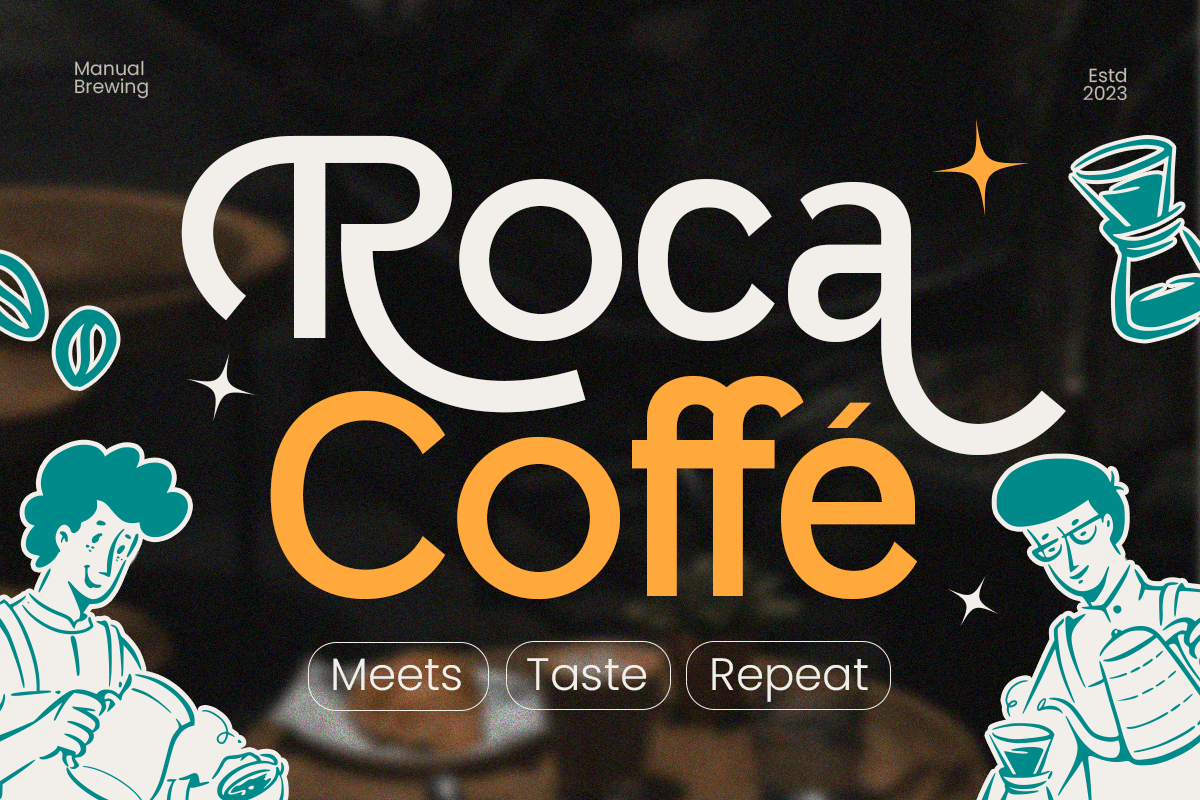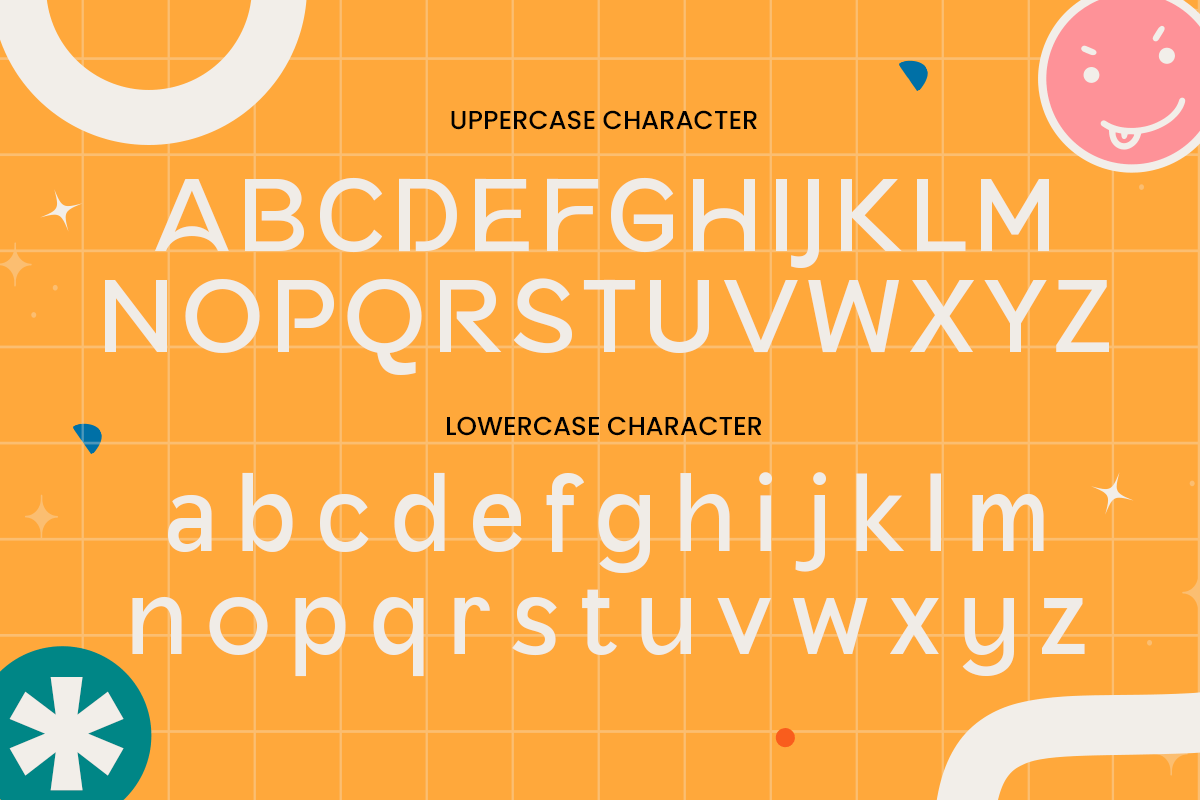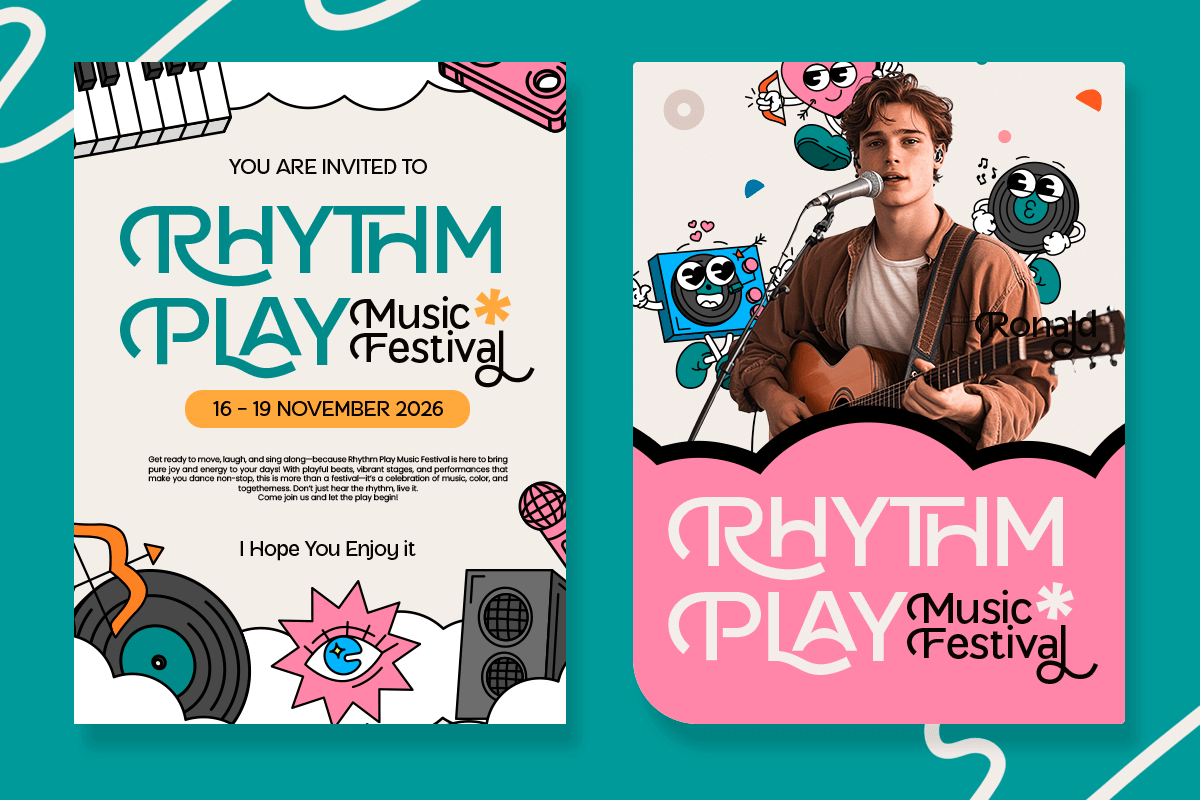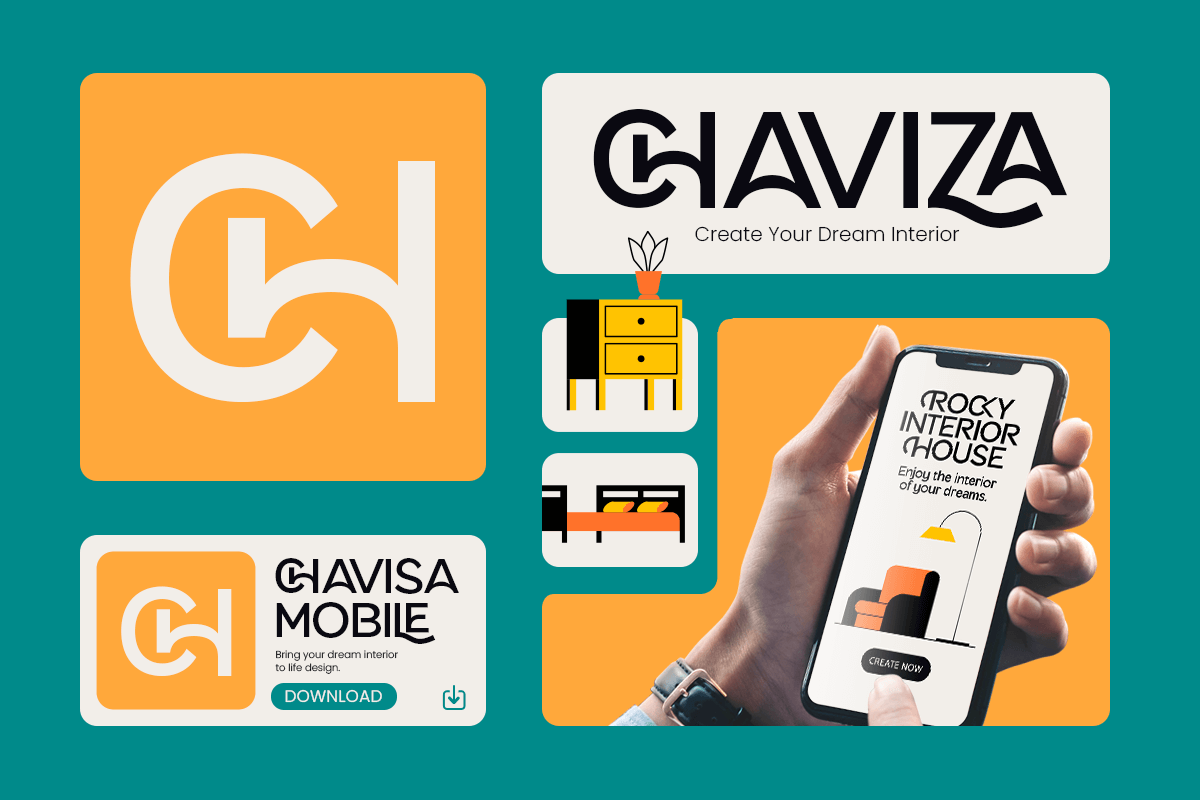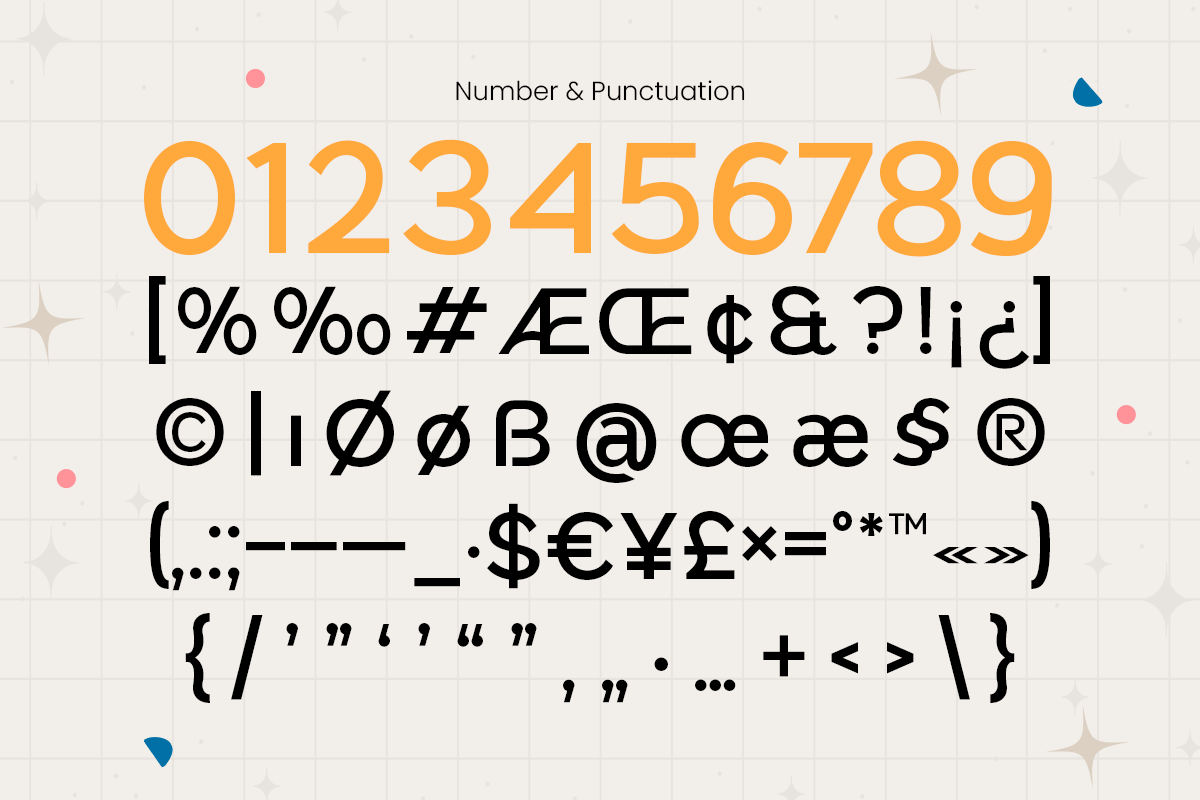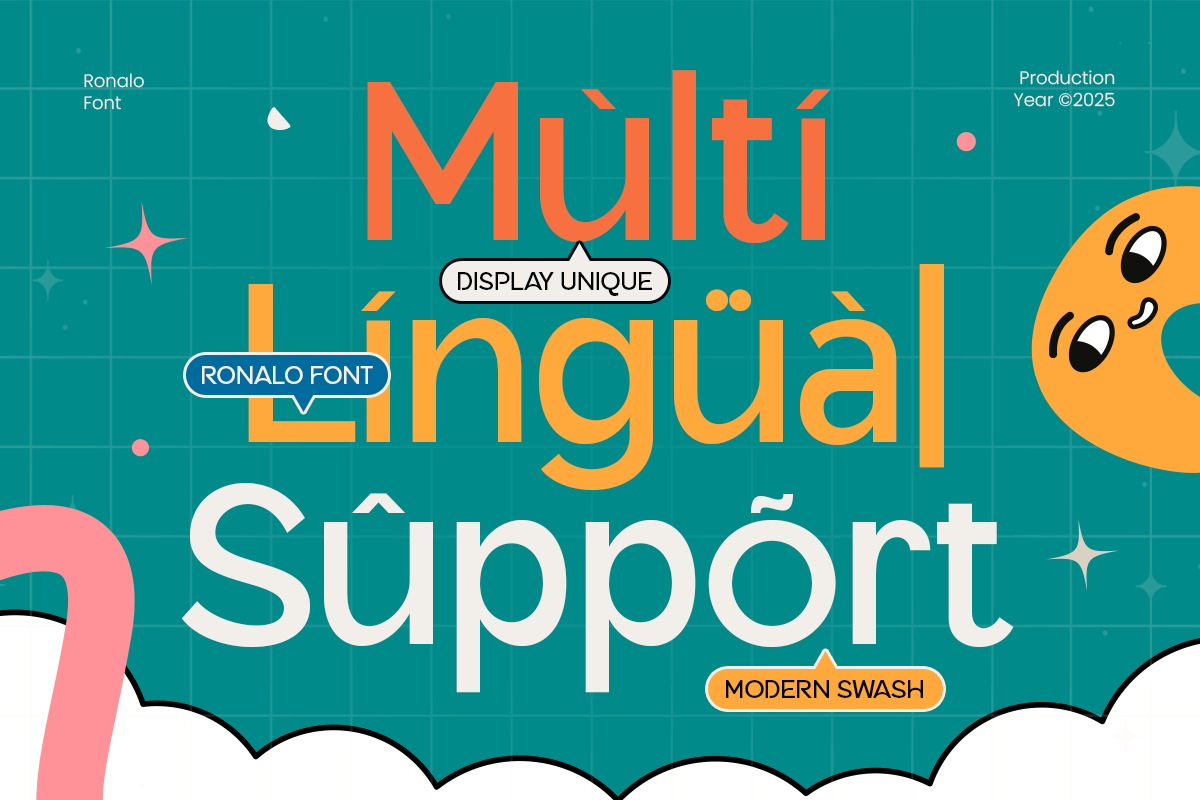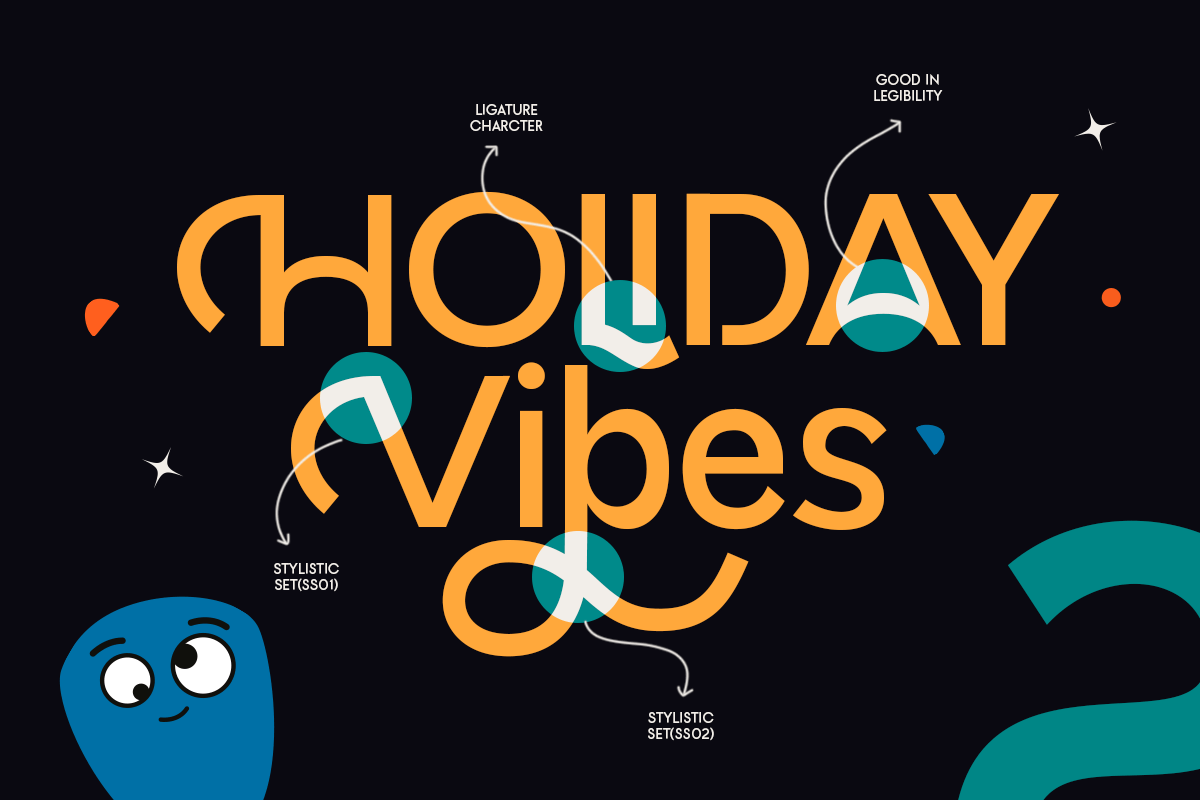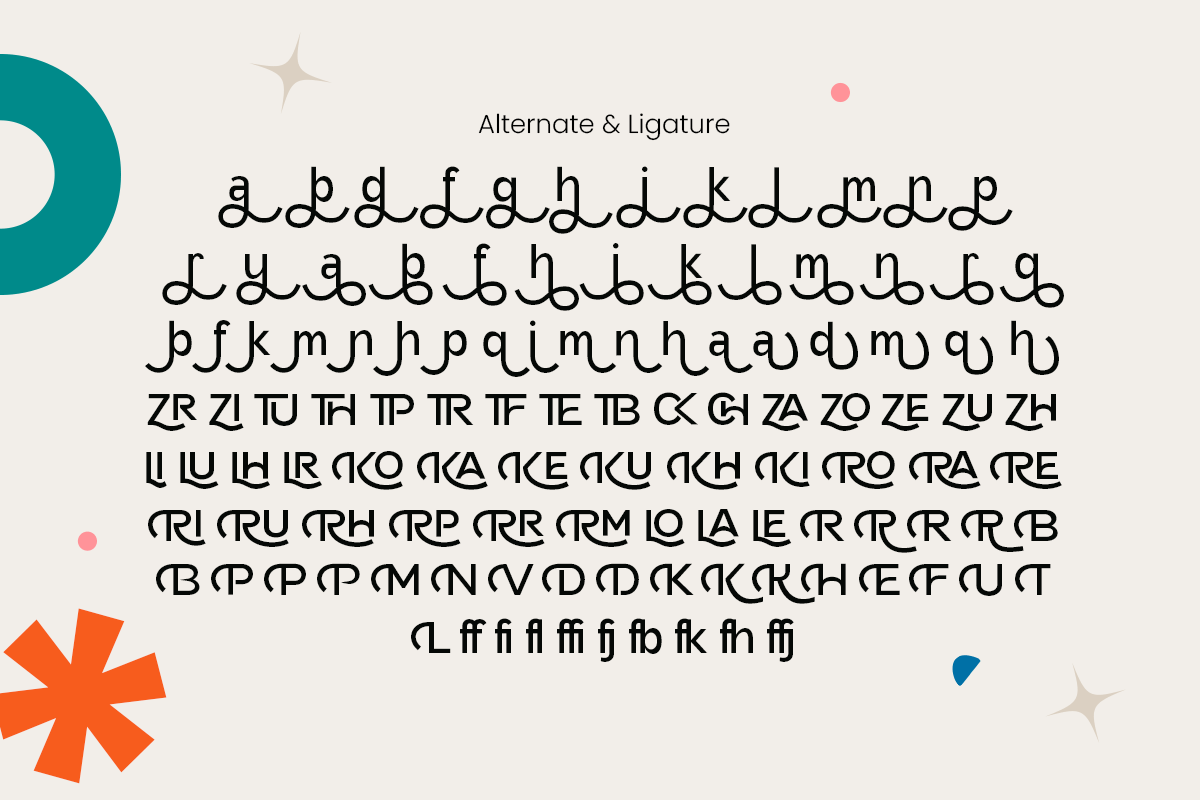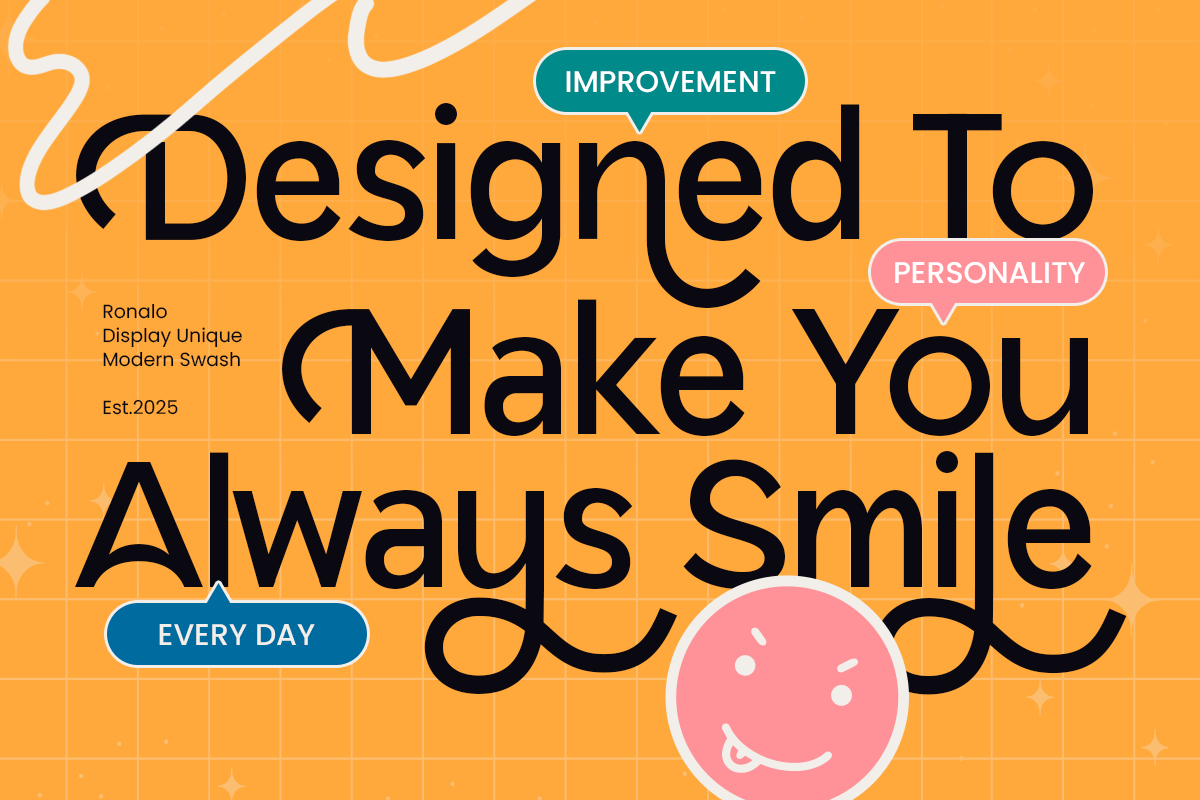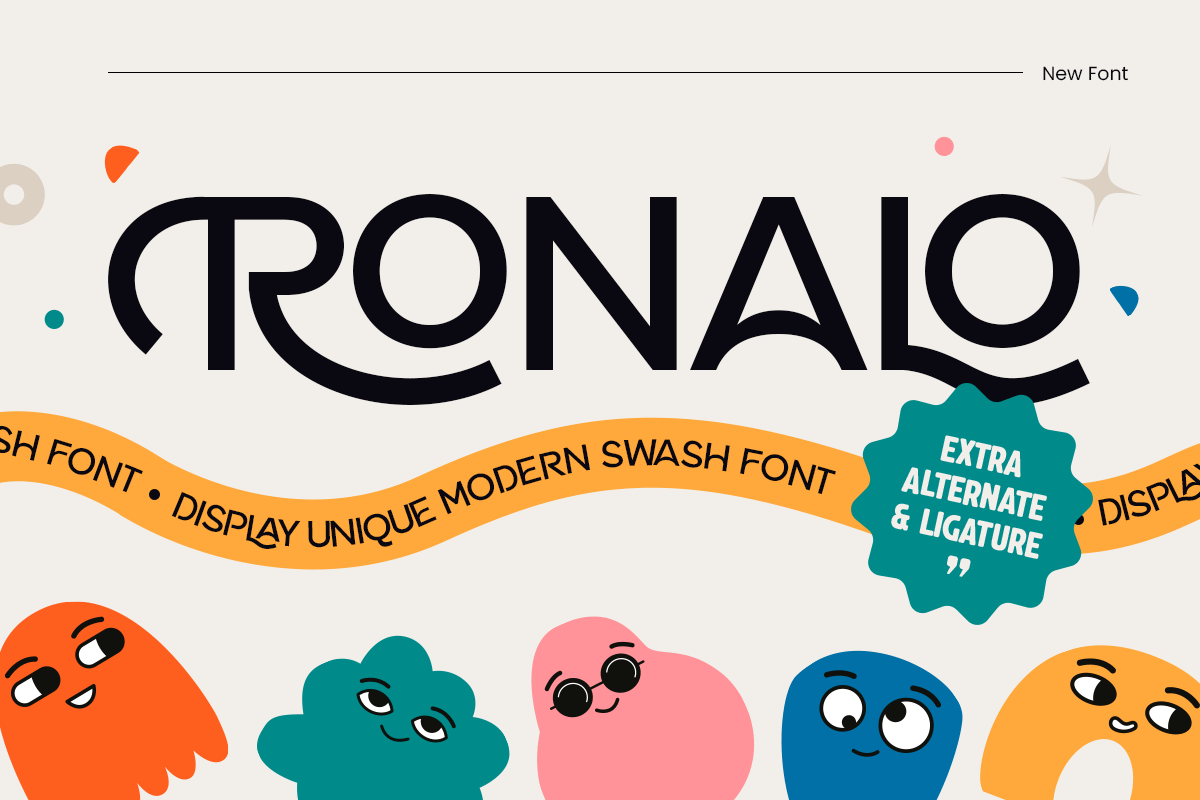
Ronalo - Display Unique Modern Font
Ronalo – Display Unique Modern Swash Font
Ronalo is a bold and stylish display font with fancy swashes that bring a modern expressive to any design. Crafted with unique curves and expressive strokes, this font is perfect for logos, branding, packaging, posters, and creative headlines.
Its distinctive swash details and sleek letterforms make Ronalo stand out in both digital and print designs. Ideal for Apps, Kids Event, creative studios, or modern product branding, this font blends funny with a touch of personality, giving your work a timeless and memorable look.
Ronalo – Display Unique Modern Swash Font Features:
\* Stylish modern display font with fancy swash accents
\* Ideal for logos, headlines, packaging, posters, and branding
\* Includes uppercase, lowercase, numerals, and punctuation
\* Smooth curves and balanced kerning for professional results
\* Perfect for designers seeking a fancy and modern display font
Make your design unforgettable with Ronalo – a unique modern swash font that adds creativity and fancy to every project.